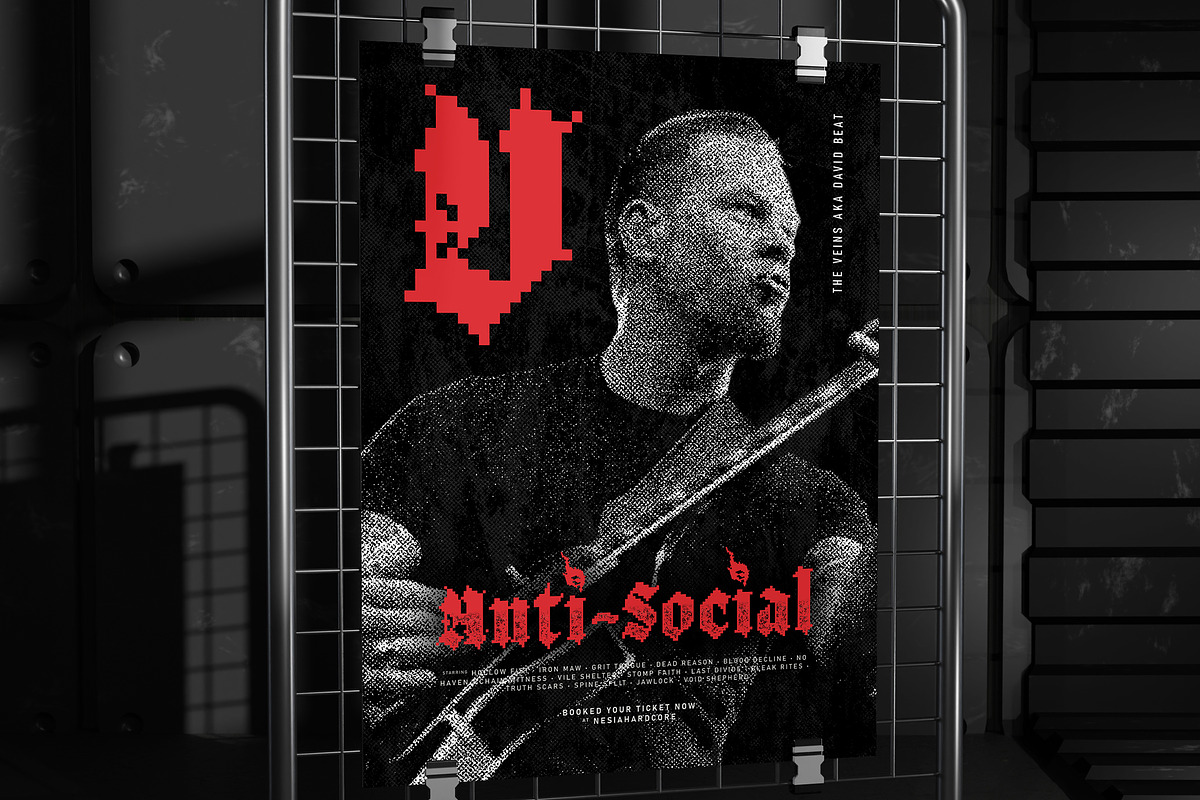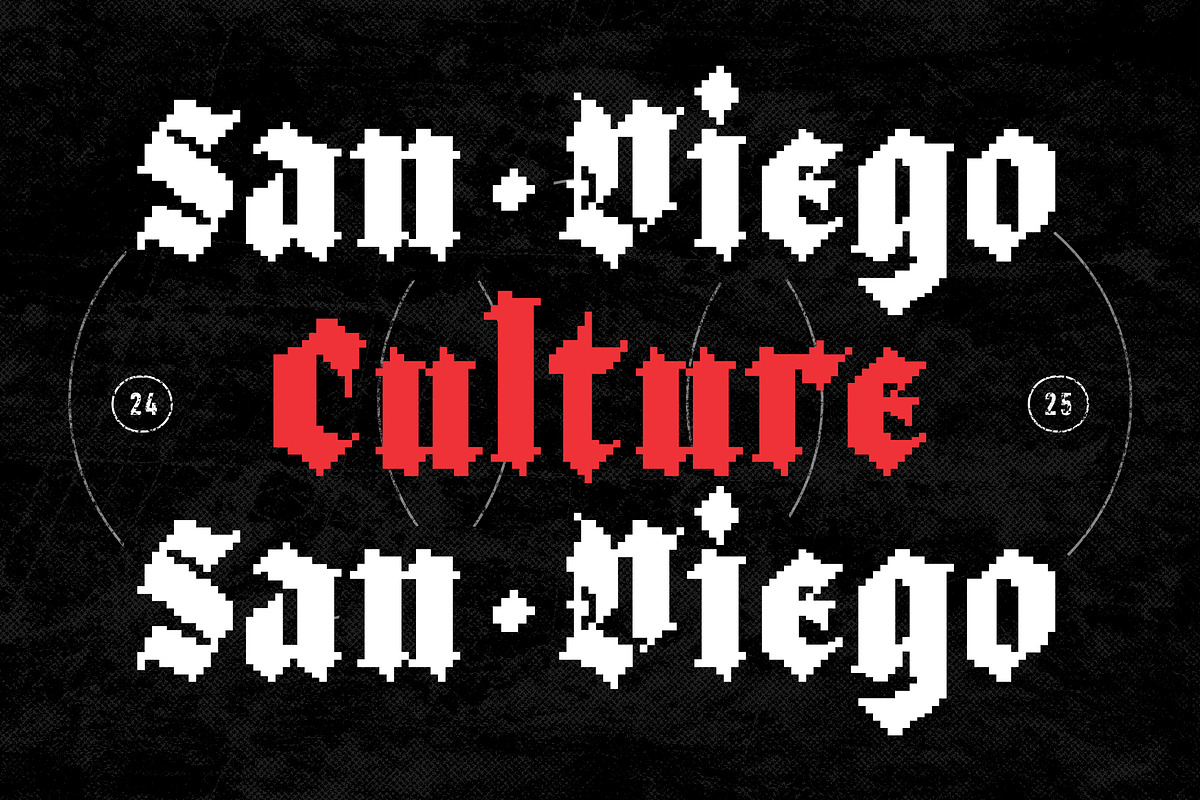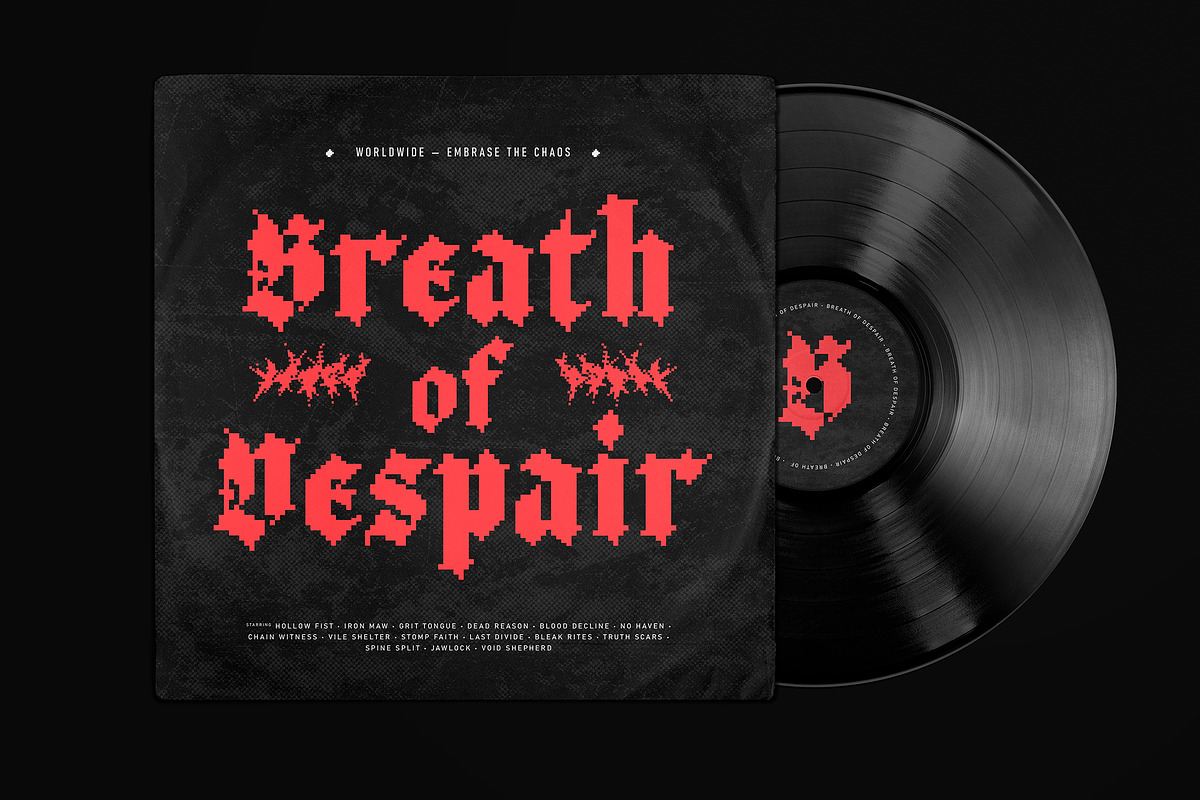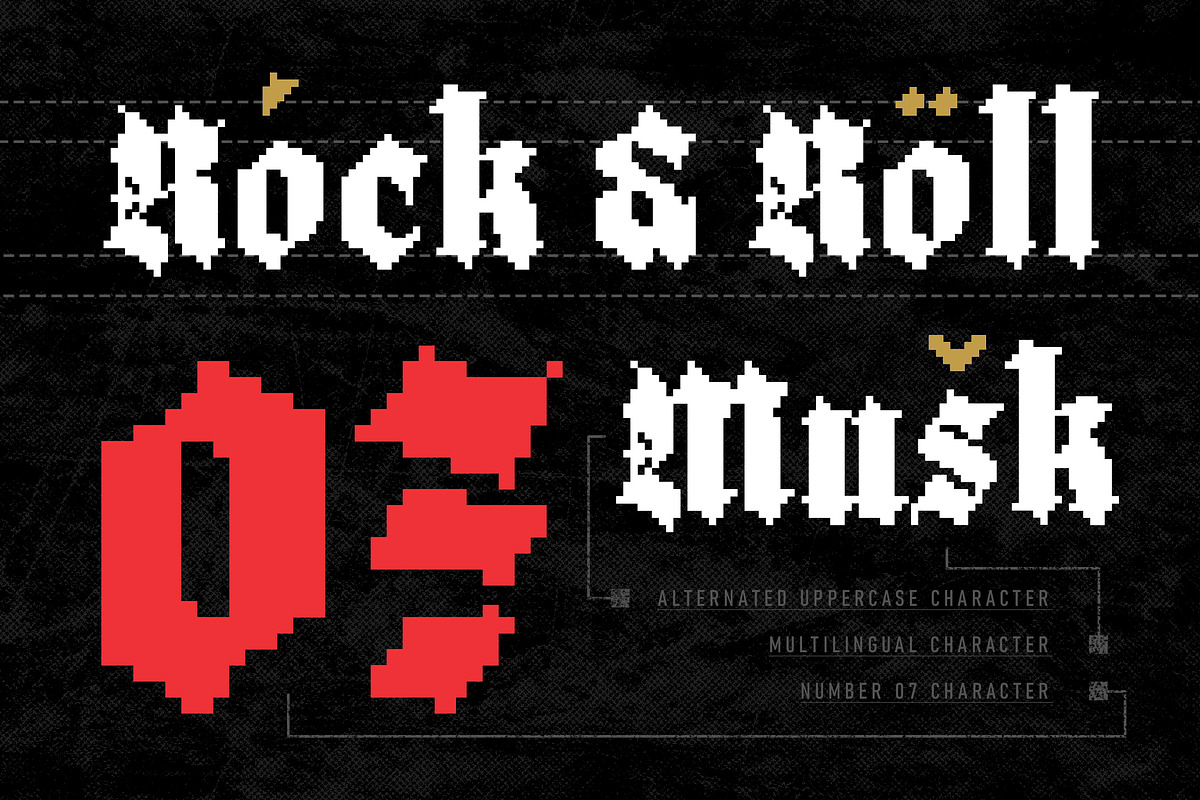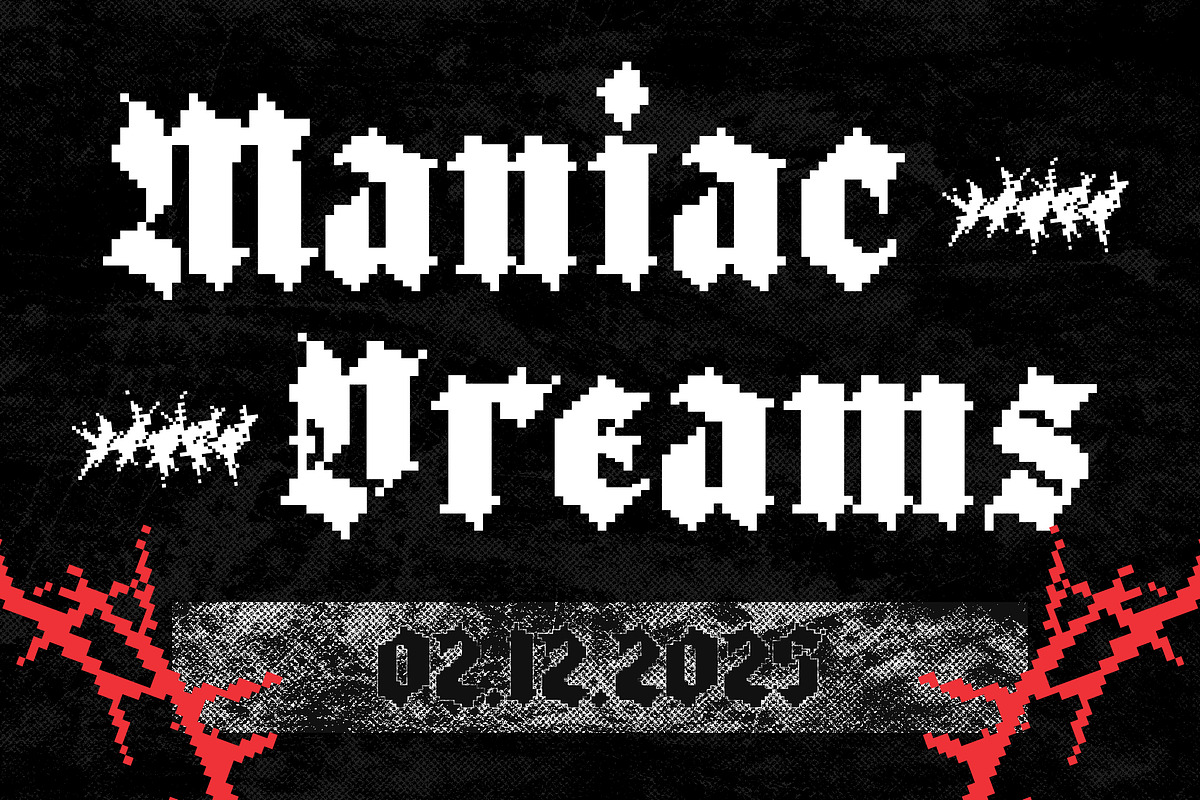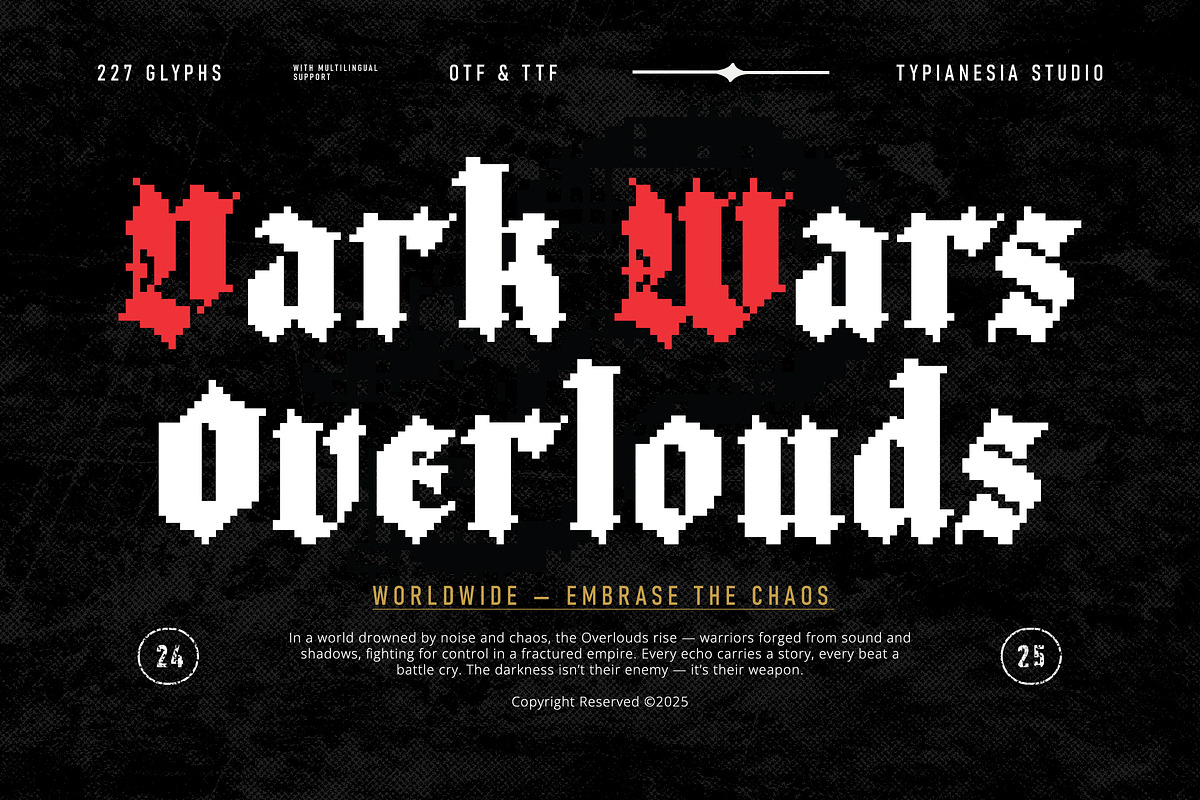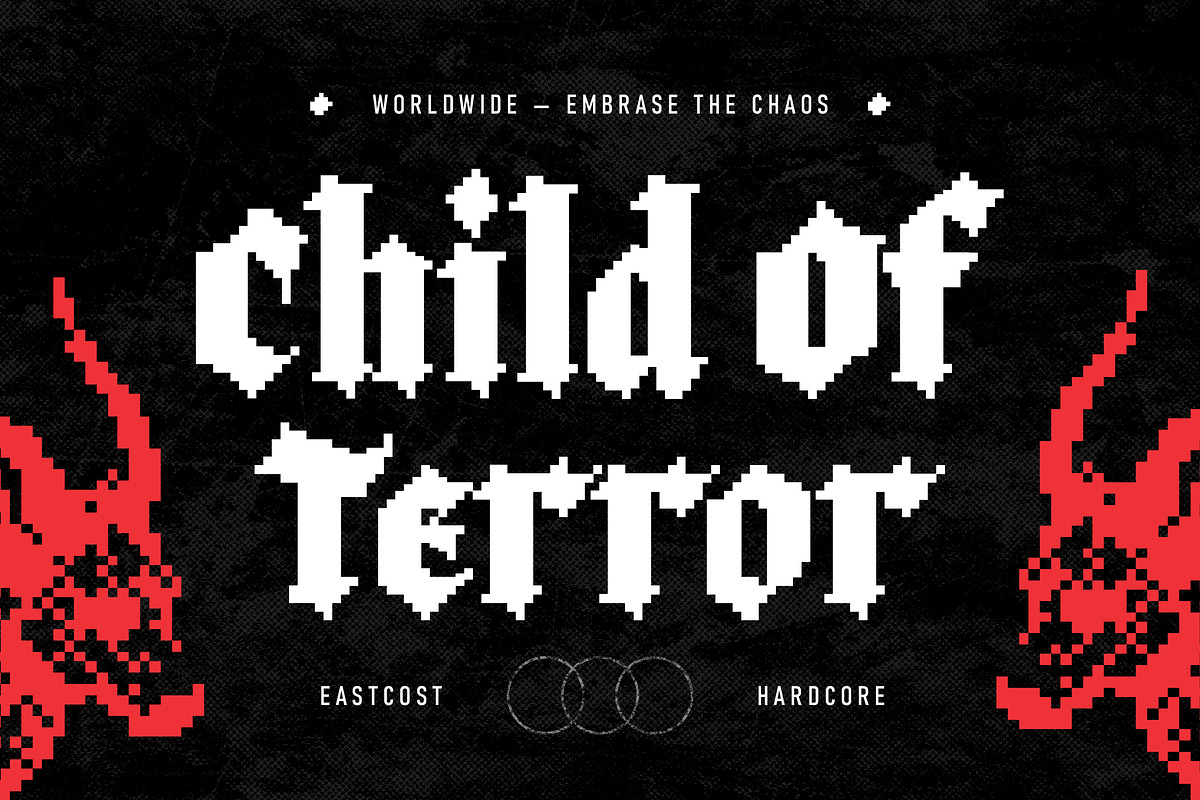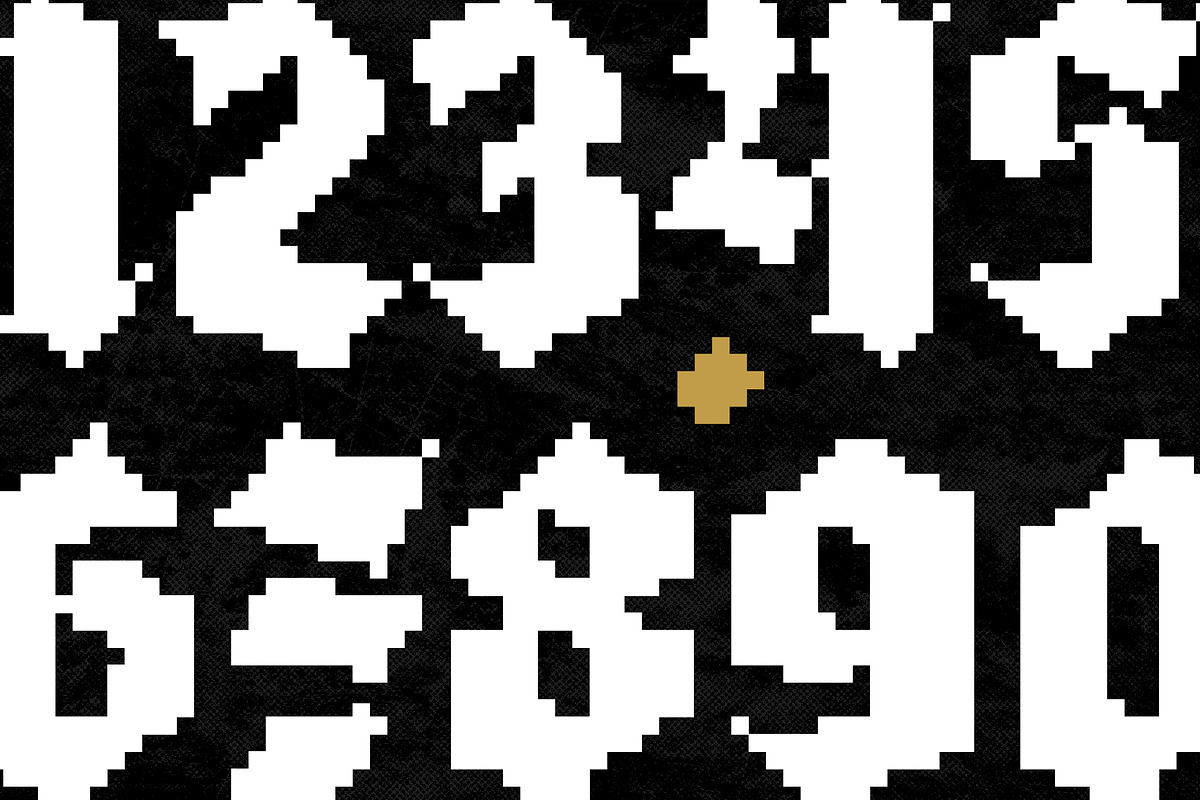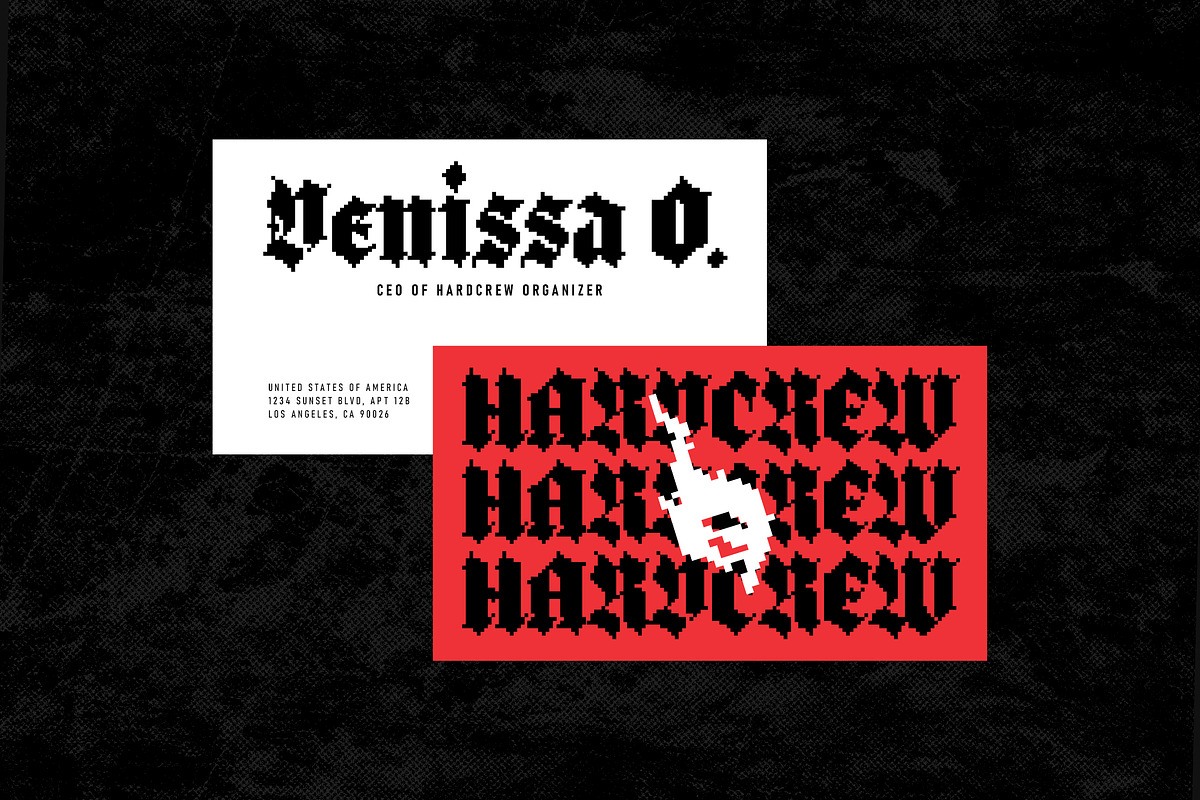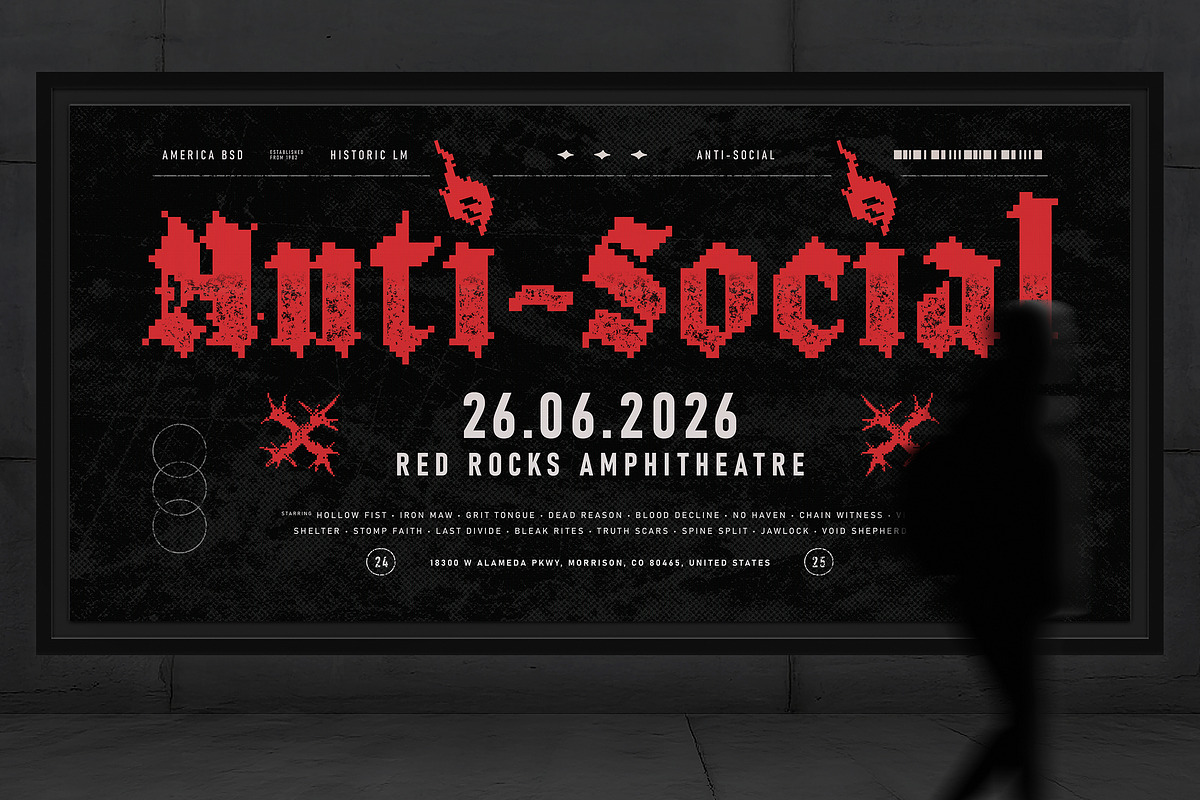
Most Wave - Pixelate Blackletter
Most Wave - Pixelate Blackletter Game Font - Modern Digital Logo Display Font
Most Wave is a Modern Pixelate Blackletter Game Font that flawlessly fuses the elaborate elegance of Gothic with the nostalgic simplicity of the 80s arcade era. This font features a distinct 8bit pixel structure with retro style, delivering a high-impact look perfect for the Digital age. This font is ideal for creating logo designs, intense game titles, dynamic music branding, eye-catching event posters, whether you're designing for a web project or high-visibility print and any projects that require a touch of modern with pixelate blackletter. Most Wave offers a unique, textured style that ensures your design is both powerful and deeply nostalgic.